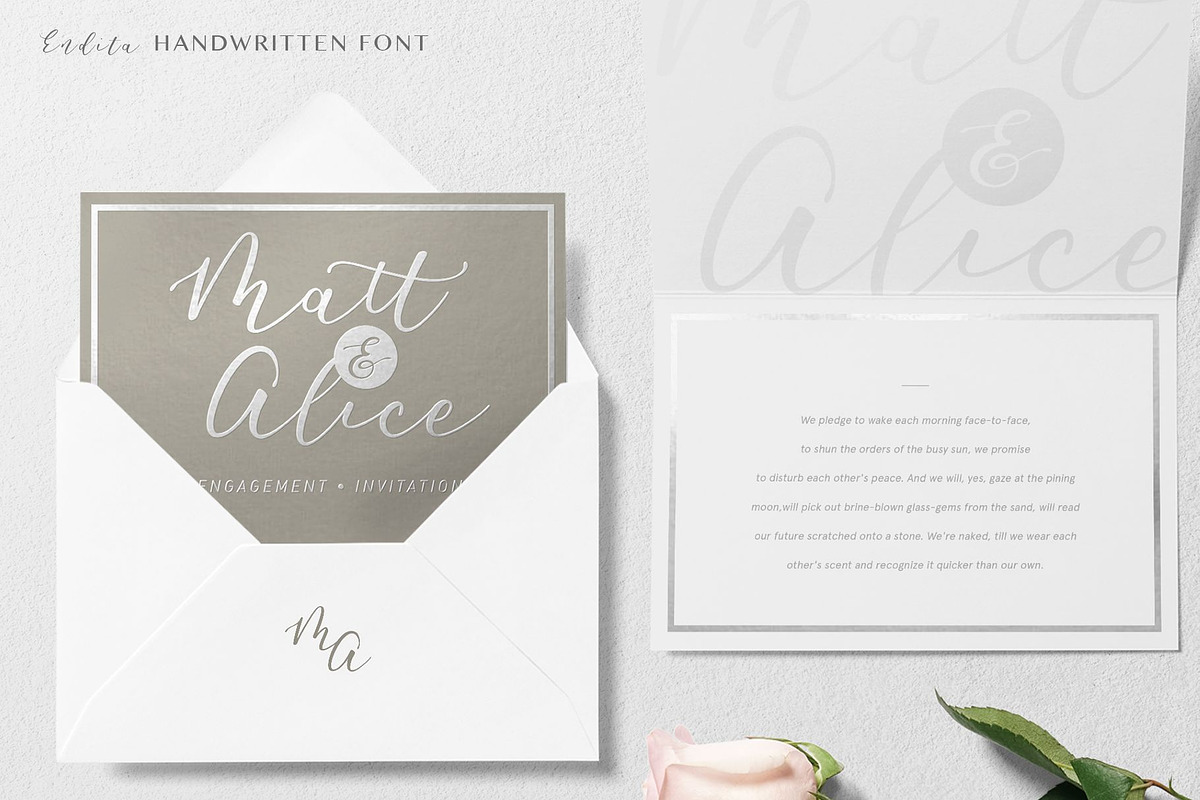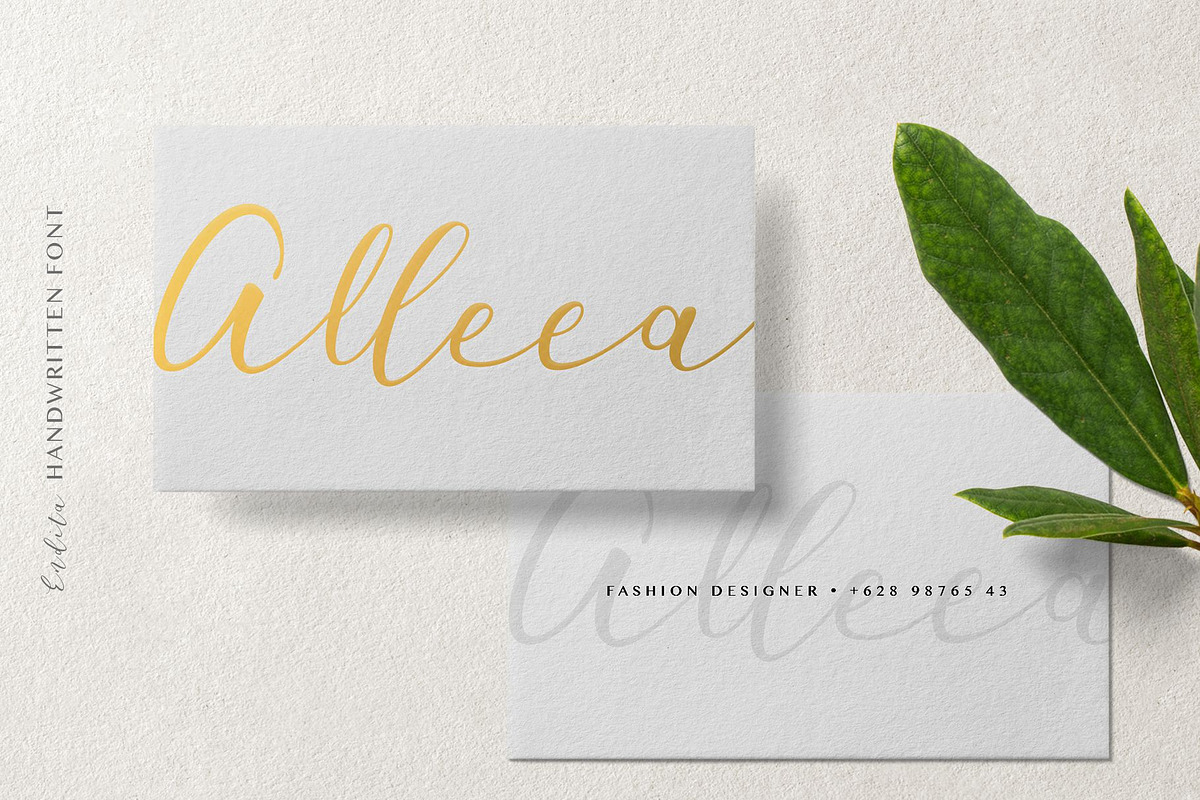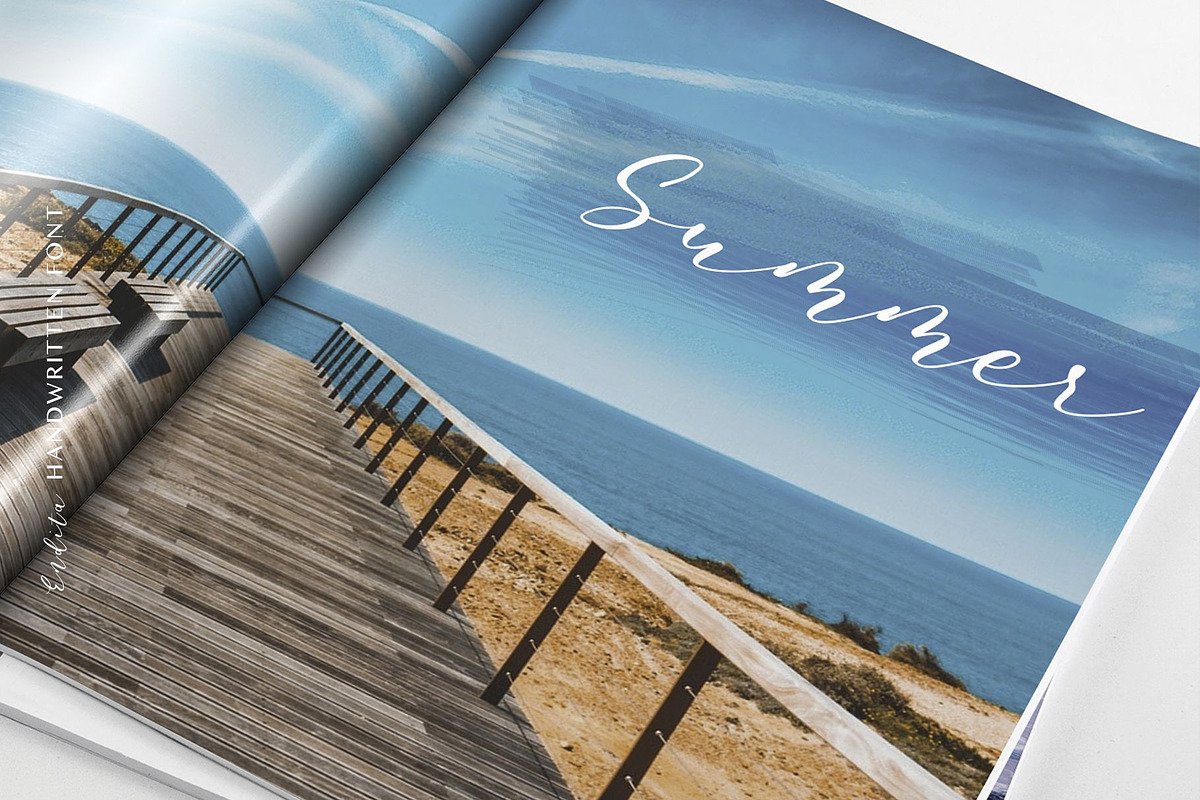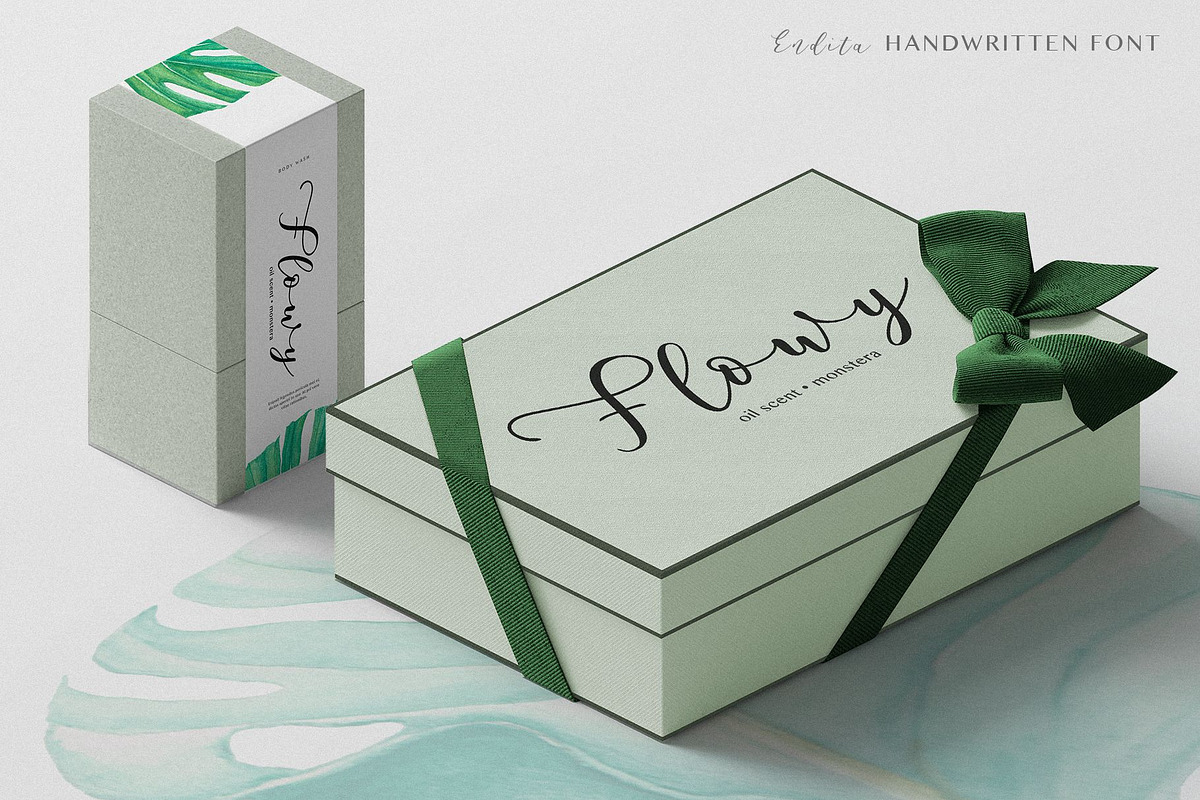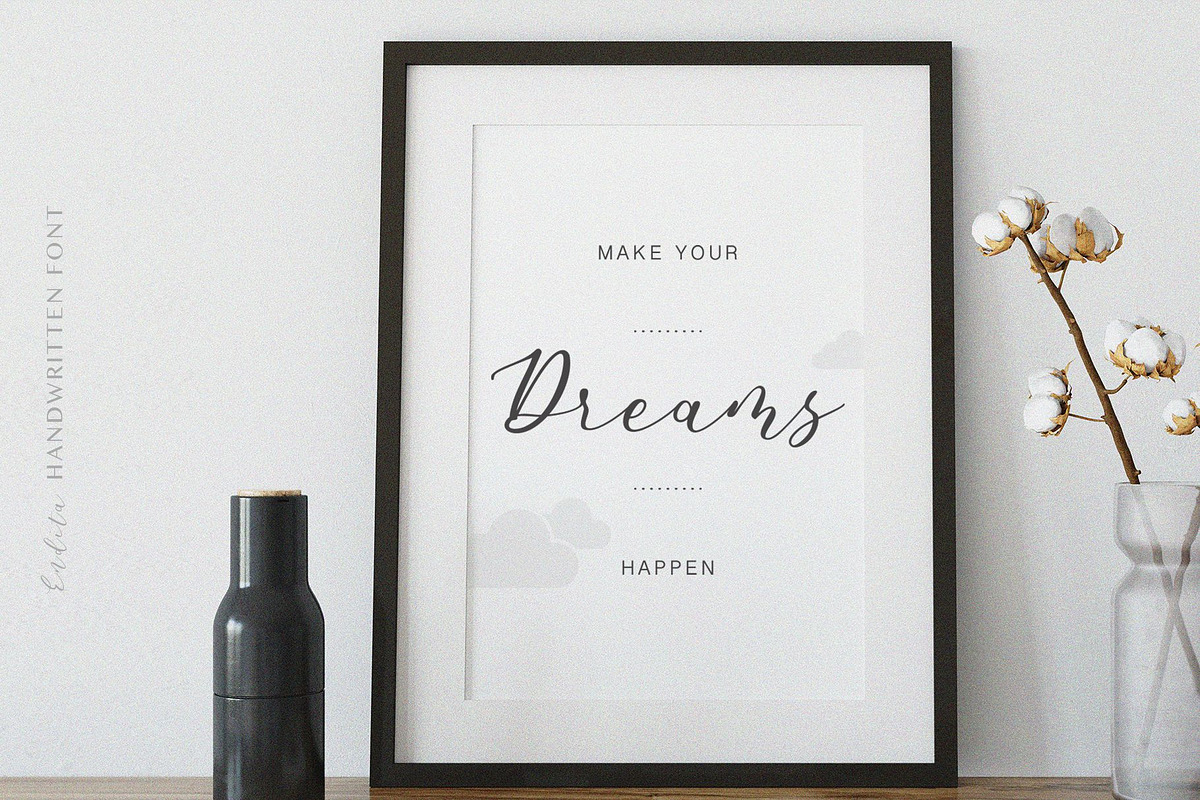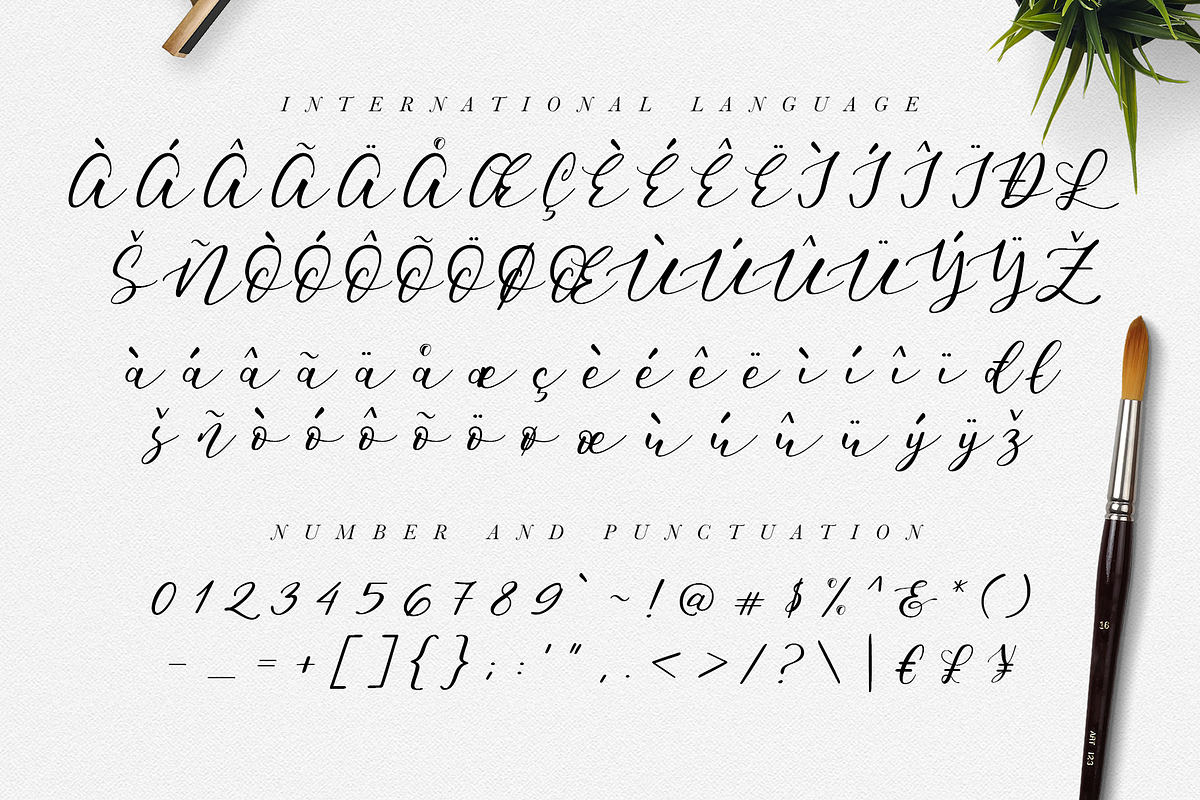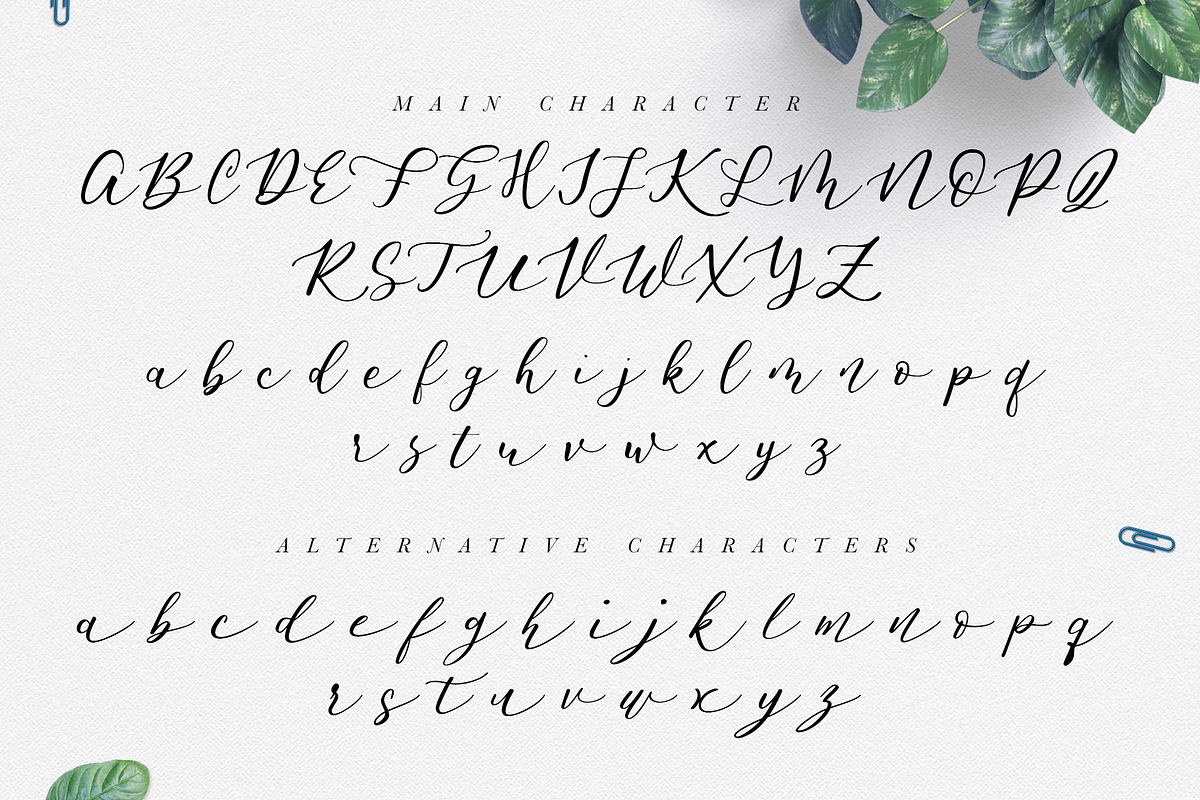
Endita Handwritten Font and Extras
Proudly present my own Endita logo as a Typeface!
And, finally I could provide the complete paired set Endita font and Watercolor Set for your DIY project like wedding invitations, greeting cards, identity, packaging design, photos, posters, bags, logos, branding, quotes, website, banners and more graphics project.
A standard Font set including uppercase, lowercase, figures and punctuation characters. Also with special features like alternates, ligatures, discretionary ligatures, and stylistic alternates. Combined with Water Color set Extras!